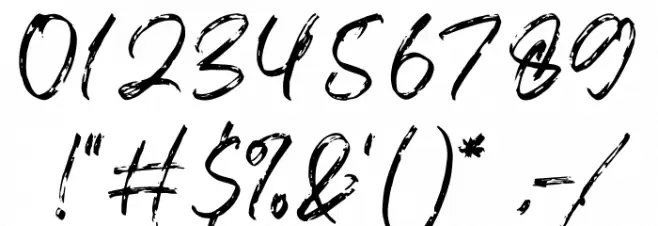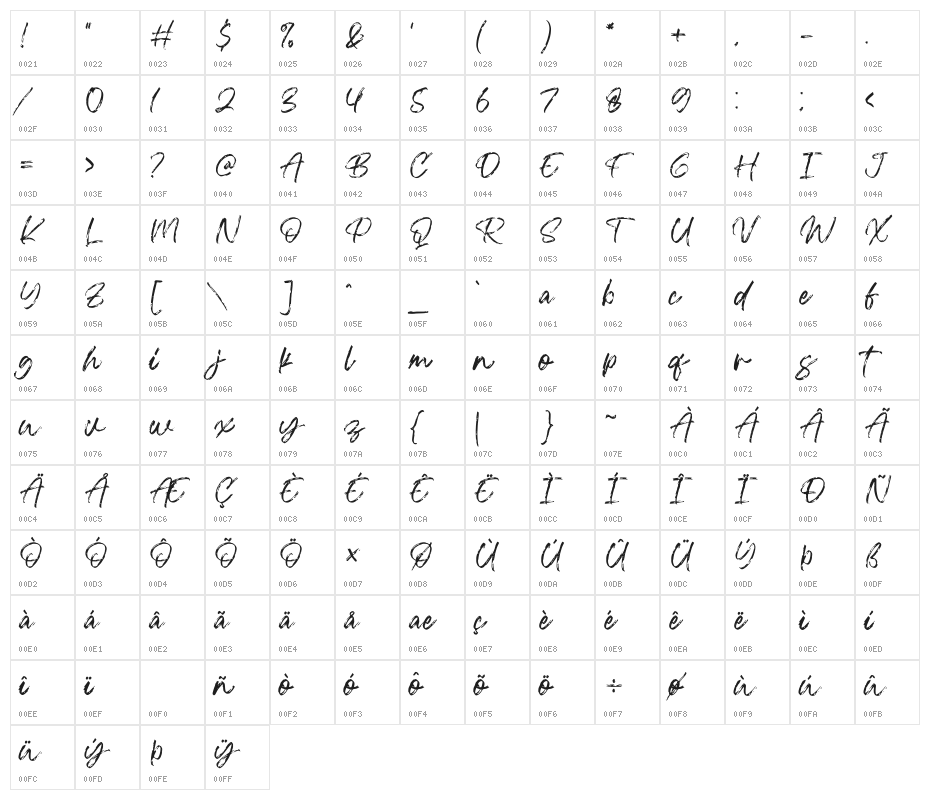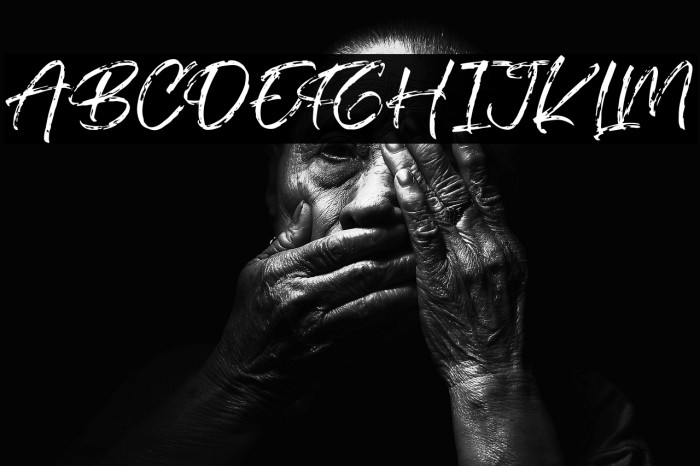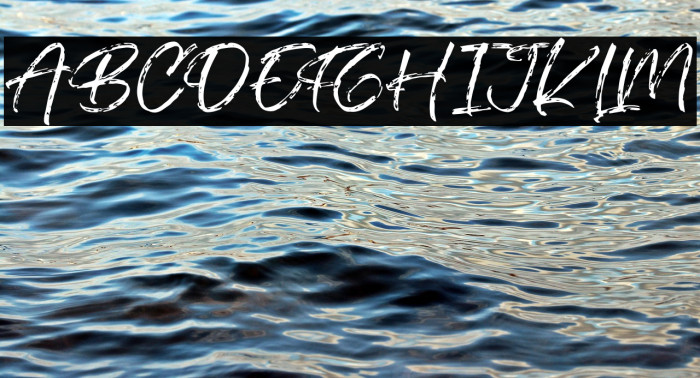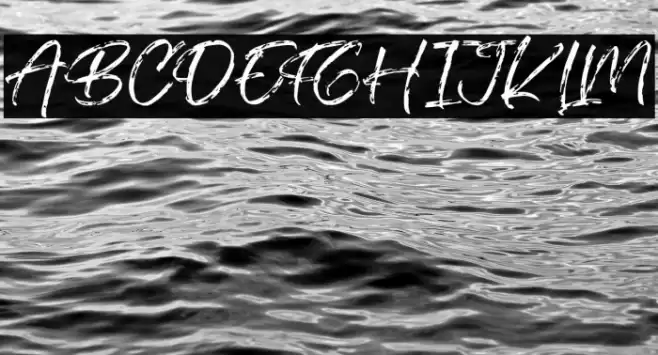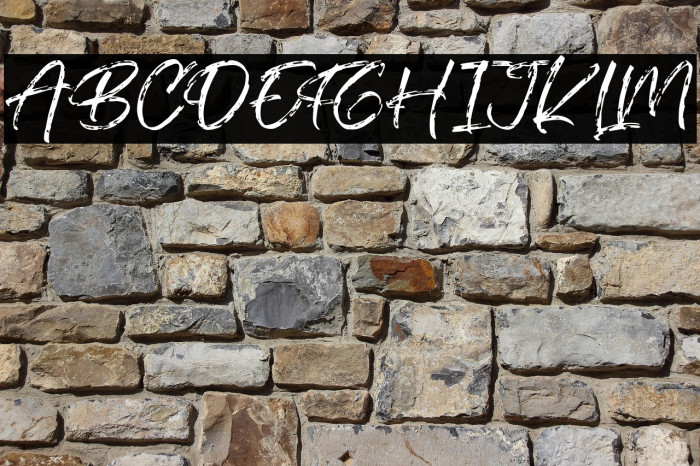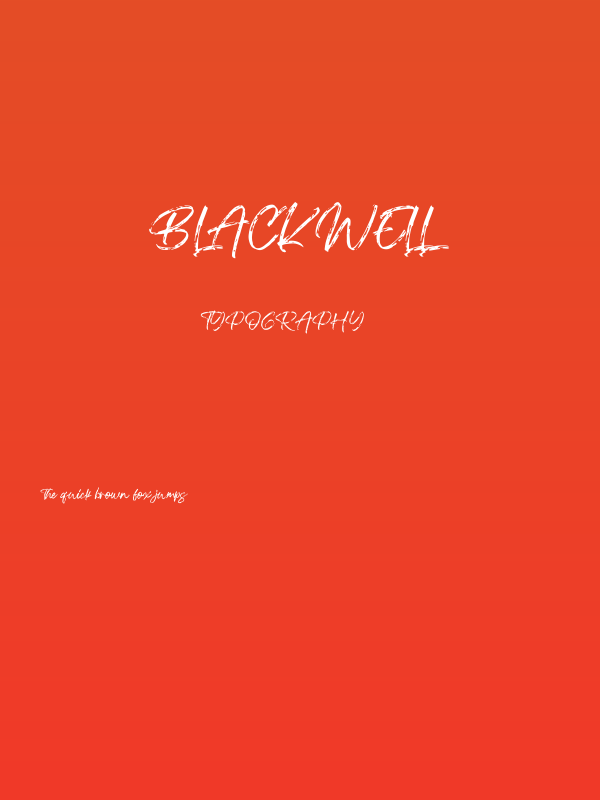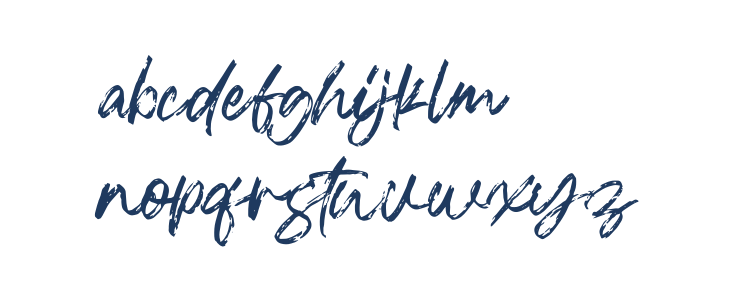
Blackwell Font
Blackwell Description
This font features a dynamic and expressive handwritten style, characterized by its bold and energetic strokes. The letters exhibit a natural flow with a slightly rough texture, giving it a raw and artistic feel. The uppercase and lowercase letters maintain a consistent style, with some variation in stroke thickness that adds to its handcrafted appearance. Numbers and special characters are designed to match the overall aesthetic, making it versatile for creative projects. The font's unique style is ideal for capturing attention and conveying a sense of creativity and individuality.
| Proposed Projects | Ideal for branding, posters, invitations, and artistic projects that require a personal touch. |